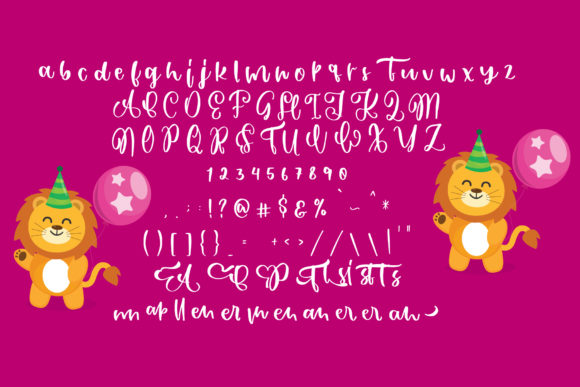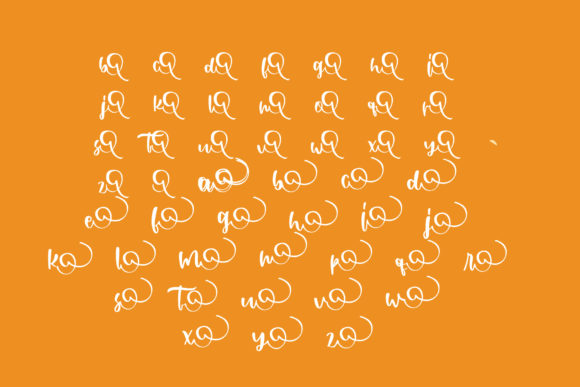
Bella Sapira Font
About Bella Sapira Font
Introducing Bella Sapira, a charming and cute handwritten font that adds a touch of whimsy and allure to your designs. With its adorable and playful style, Bella Sapira brings a sense of warmth and authenticity to any creative project.
The hand-drawn quality of Bella Sapira gives it a unique and organic feel, making your designs look more genuine and inviting. Its delightful letterforms and cute doodles create an enchanting atmosphere, perfect for children’s books, greeting cards, crafts, and any other design that aims to captivate and engage the audience.
Bella Sapira’s PUA encoding allows you to access all of its glyphs and swashes effortlessly. This means you can easily incorporate charming decorative elements, alternate characters, and stylish swashes to add more flair and personality to your designs. Whether you want to add hearts, stars, or cute icons, Bella Sapira offers a wide range of options to unleash your creativity.
The versatility of Bella Sapira makes it suitable for various design purposes. Use it for playful headlines, adorable logos, captivating social media graphics, or any other project where you want to infuse a sense of whimsy and cuteness. Bella Sapira elevates your designs, making them look more approachable and inviting.
Bella Sapira is designed to make your designs stand out and evoke positive emotions. Its adorable and attractive appearance instantly grabs attention and creates a lasting impression. Whether you’re designing for children or aiming to bring a lighthearted touch to your work, Bella Sapira is the perfect choice.
So, let Bella Sapira be your creative companion. Combine it with your imaginative ideas and watch as your designs come to life with charm and allure. Whether you’re designing for children, creating personalized gifts, or adding a playful touch to your branding, Bella Sapira is here to make your designs more real and attractive.
Unleash the power of Bella Sapira and let it bring joy and enchantment to your creative endeavors. Embrace its cute and handwritten charm, and create designs that capture hearts and spark imagination. Bella Sapira is your key to creating amazing and delightful designs that leave a lasting impression.
Get ready to embark on a creative journey with Bella Sapira and discover the endless possibilities it offers. Let your designs shine with cuteness and authenticity, and enjoy the process of bringing your creative visions to life. Bella Sapira is here to make your designs irresistibly charming and captivating!